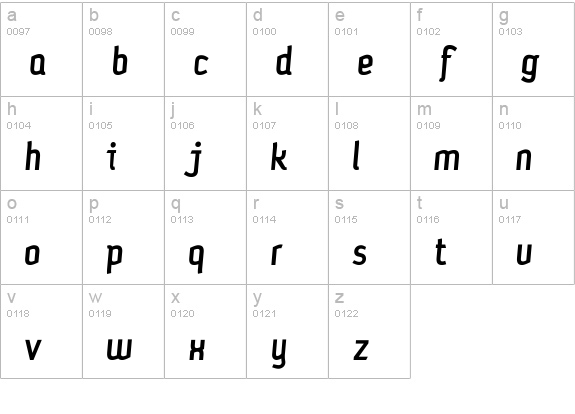
Petrol-MediumItalic is a stylish and sophisticated font that effortlessly combines elegance with a touch of modernity. Its italicized design adds a subtle flair to any text, making it perfect for projects that require a touch of sophistication. The smooth curves and delicate detailing of Petrol-MediumItalic exude a sense of refinement and grace, making it an ideal choice for invitations, logos, branding materials, and more. Whether you are designing a wedding invitation or creating a stunning logo for your business, this font will add a sense of prestige and class to your project. But what makes Petrol-MediumItalic even more appealing is that it is freely available to download at FontsMarket.com. Yes, you read that right - this stunning font can be yours without any cost. FontsMarket.com is dedicated to providing high-quality fonts to designers and enthusiasts alike, and Petrol-MediumItalic is just one of the many fonts they offer for free. With its versatile nature and timeless appeal, Petrol-MediumItalic is a must-have font for anyone looking to elevate their designs. Its sleek and stylish appearance will effortlessly enhance any project, giving it a professional and polished look. So why wait? Head over to FontsMarket.com and download Petrol-MediumItalic now to add a touch of sophistication to your next design endeavor.